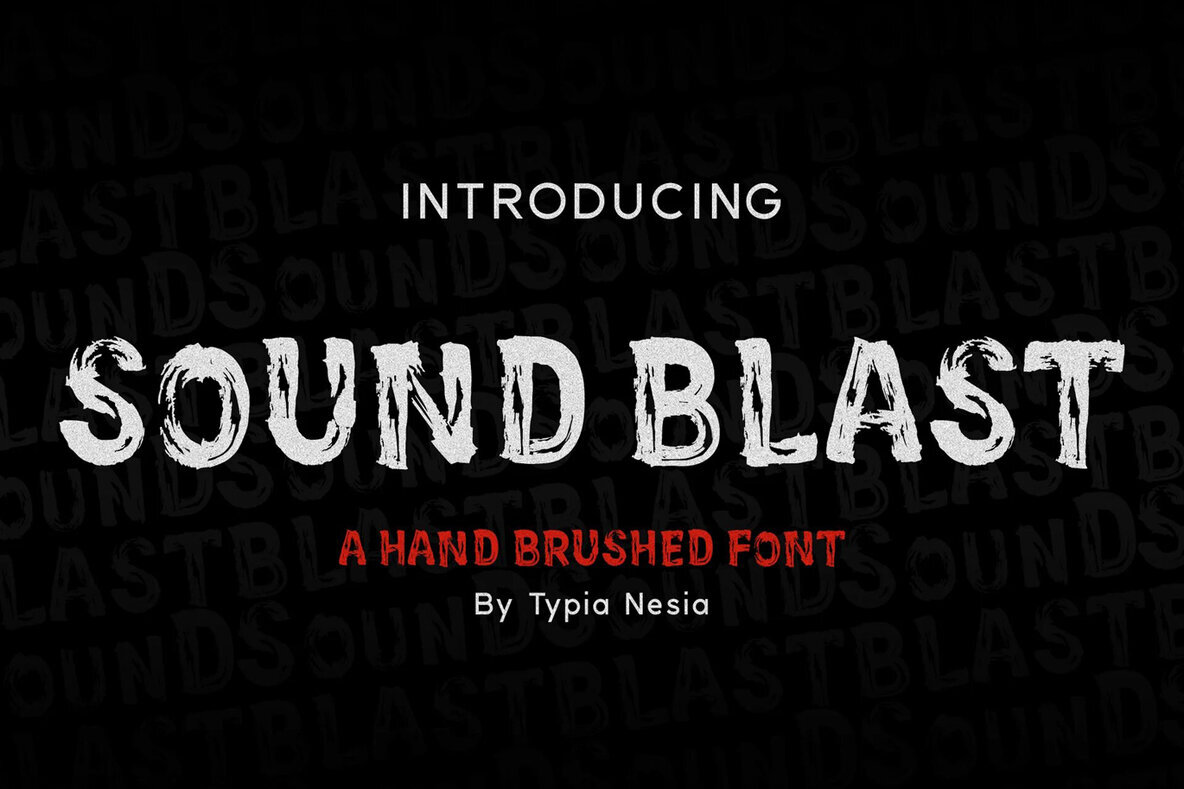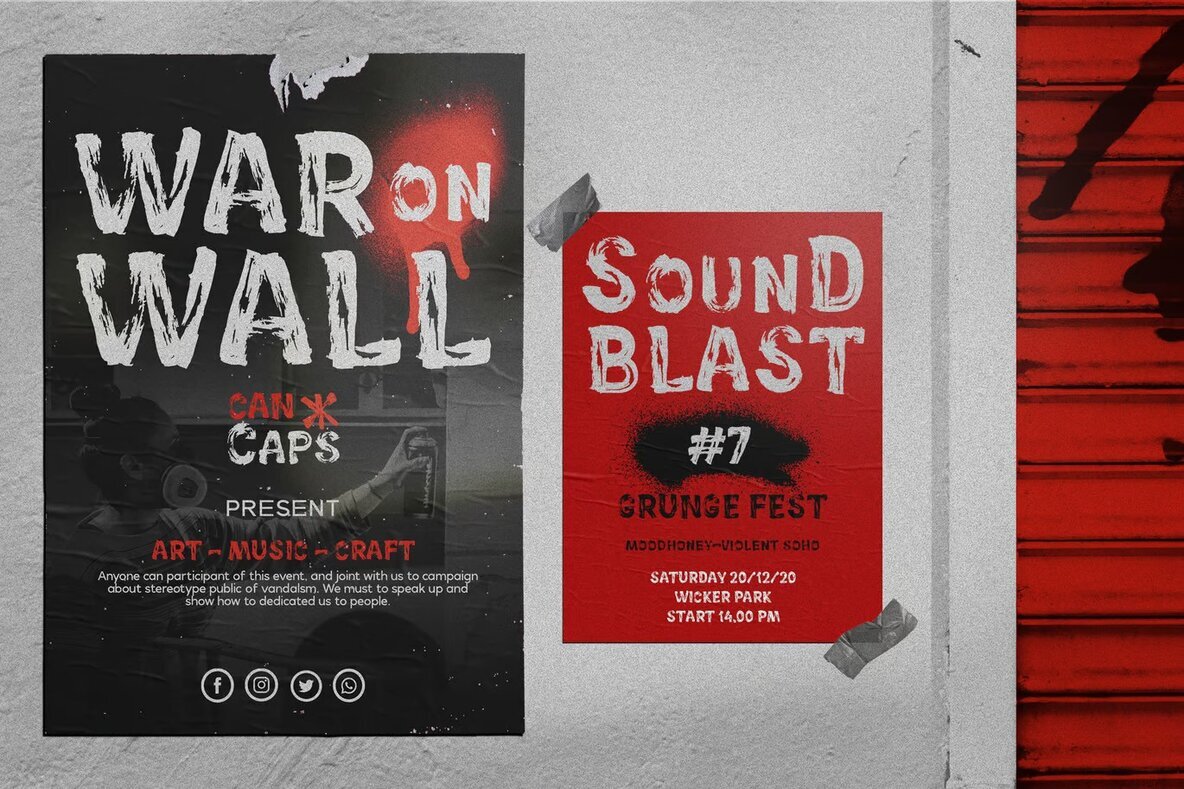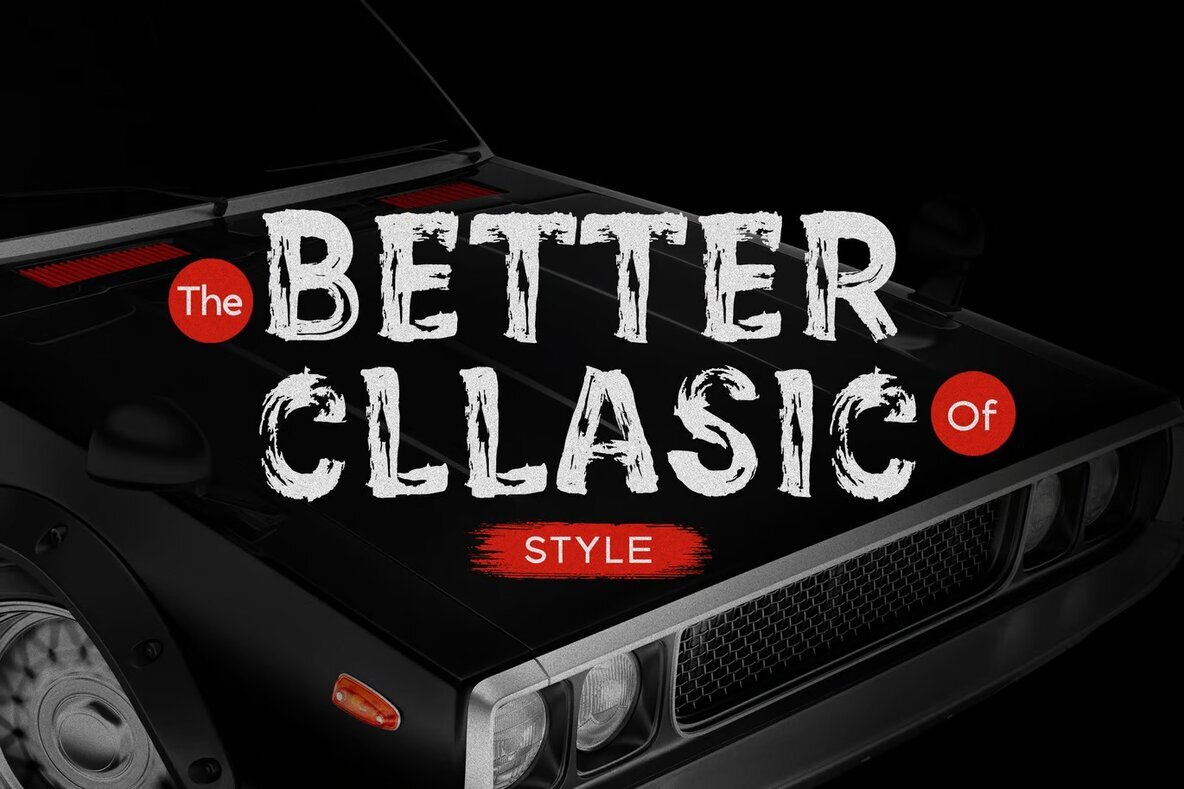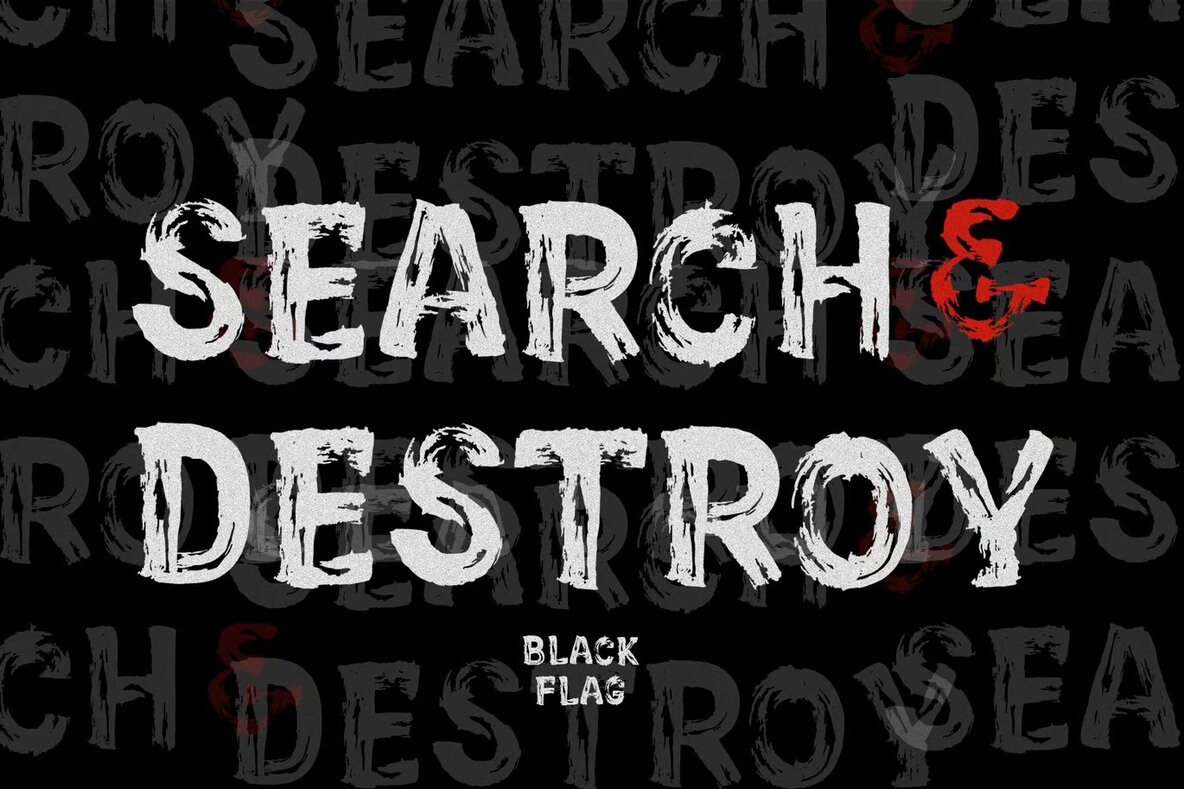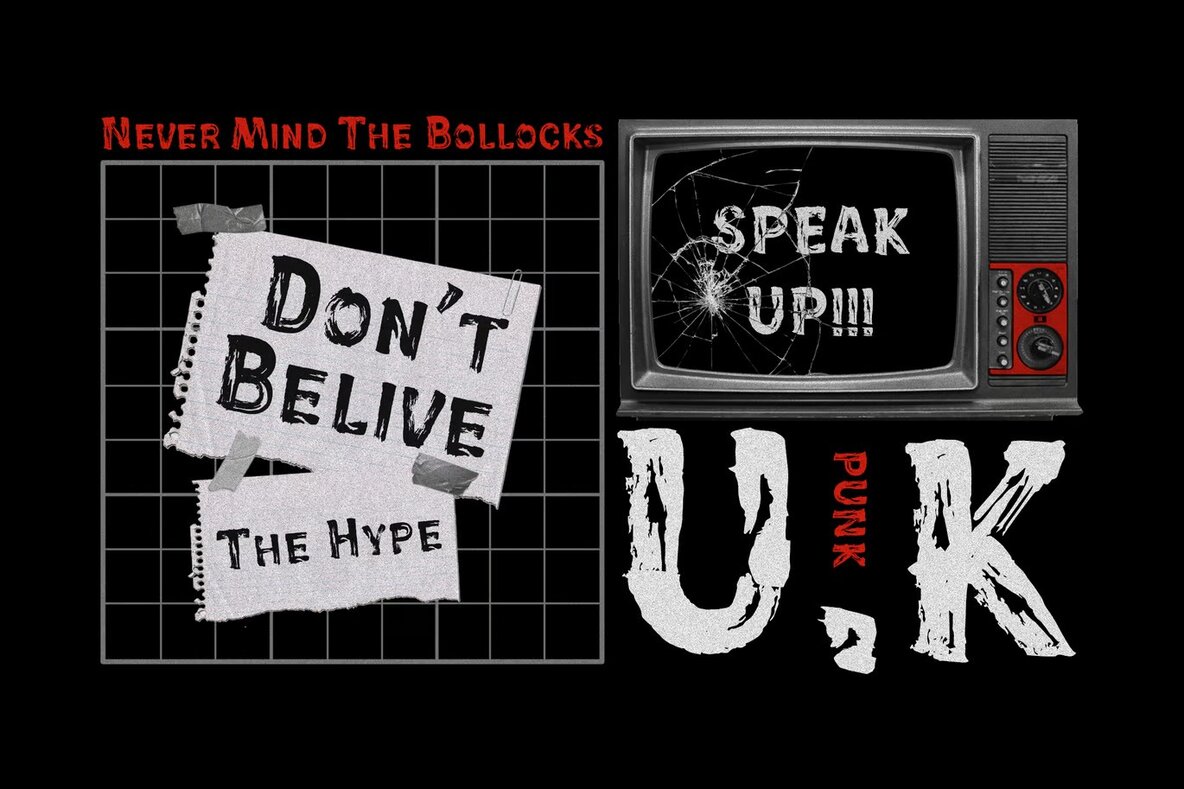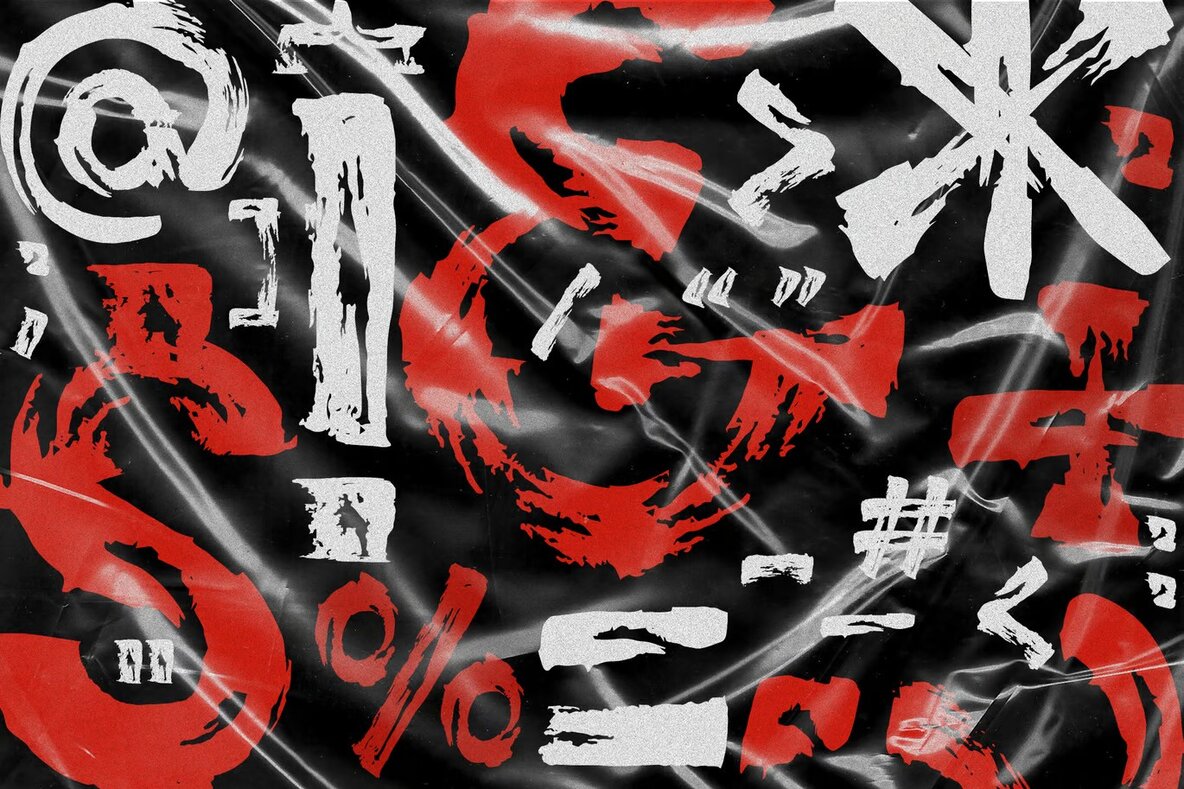
Soundblast Font
Soundblast Regular
Soundblast by Typia Nesia Std is a bold and expressive all-caps brush font designed for vibrant and dynamic projects. Ideal for music events or festival branding, Soundblast brings an energetic edge to lettering and logotype creations. Whether it's enhancing product packaging, designing apparel, or crafting eye-catching invitations and advertisements, this font makes a striking impression across various typography design projects.
Versatile in its application, Soundblast fits seamlessly into diverse design needs, from labels and t-shirts to comprehensive advertising campaigns. Its strong, textured strokes convey a sense of movement and sound, perfectly aligning with projects that seek to capture attention and inspire creativity.